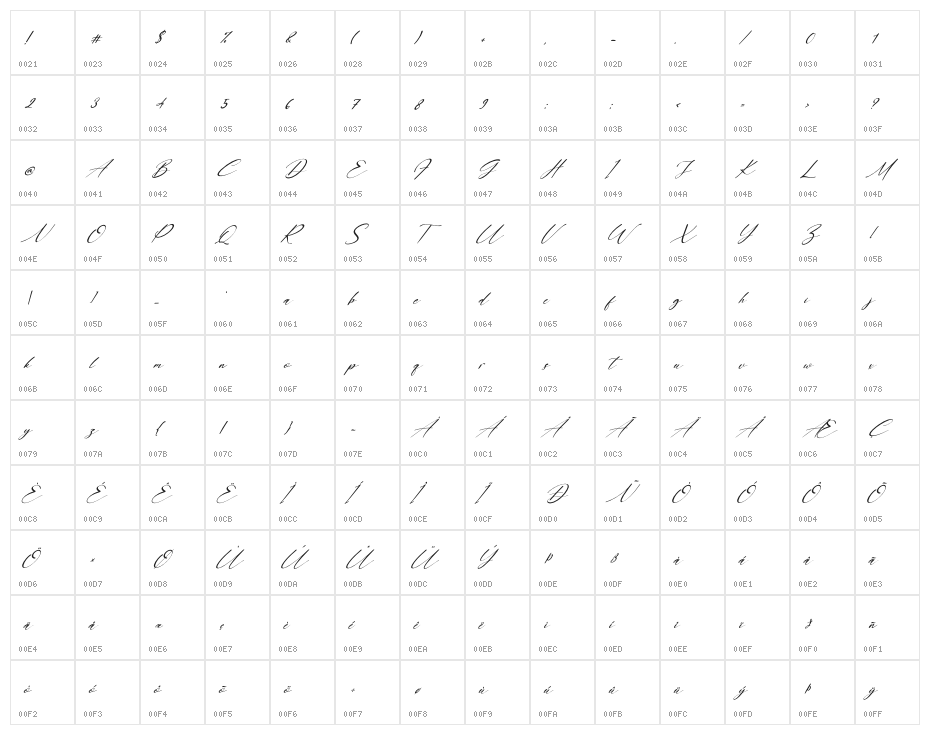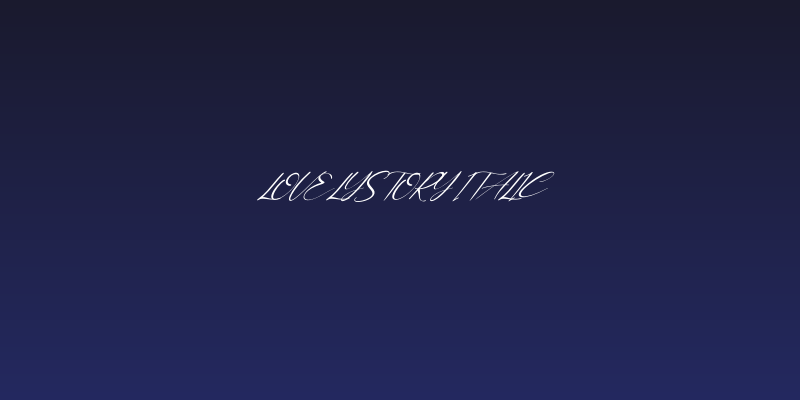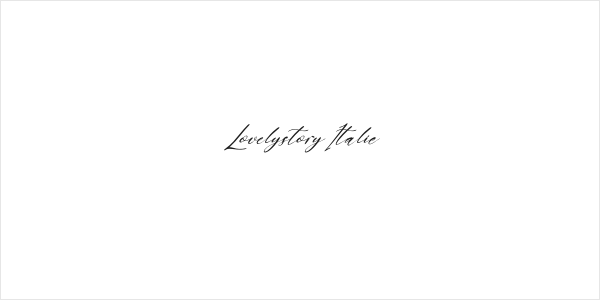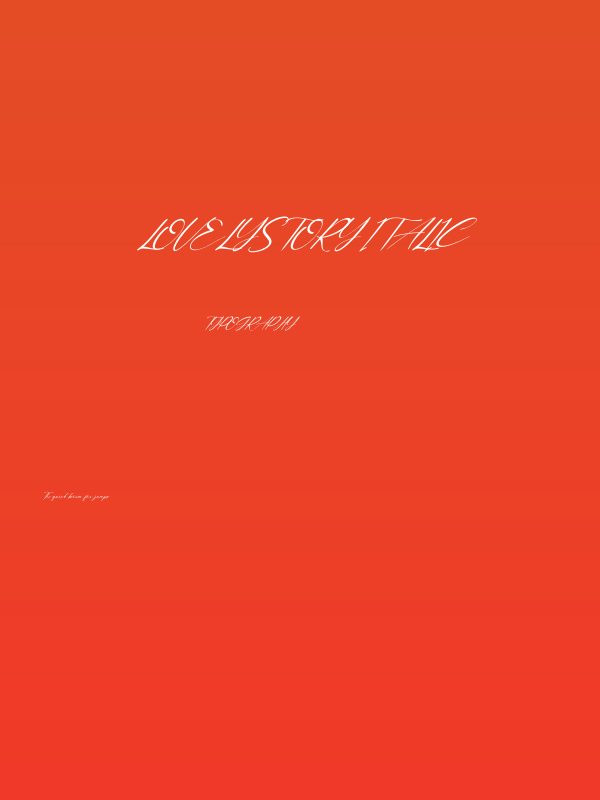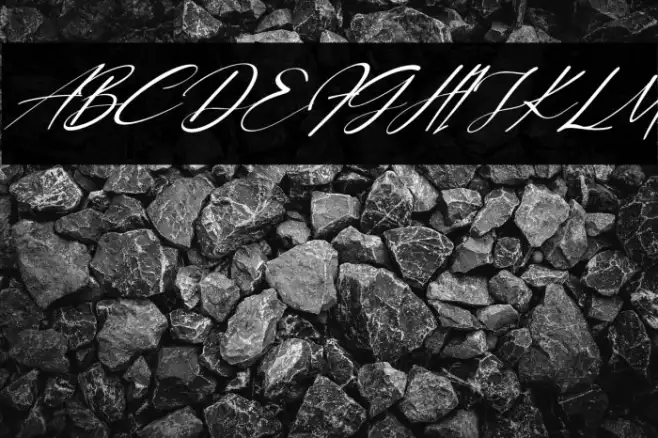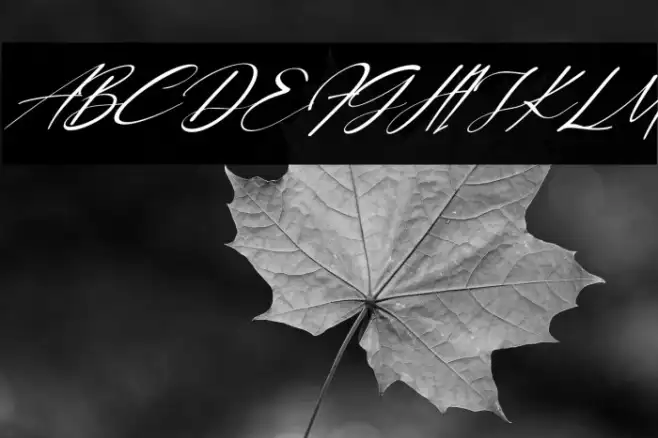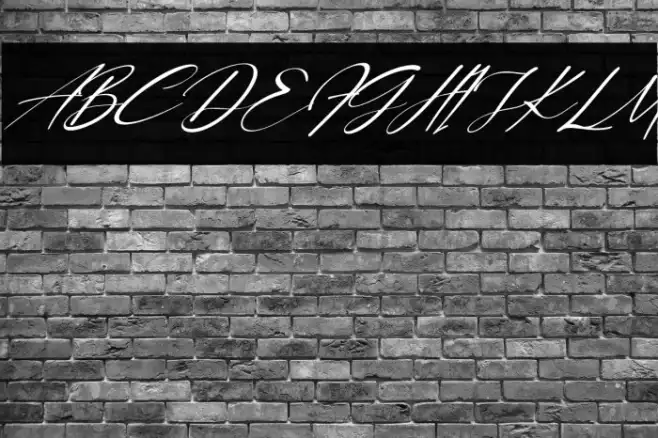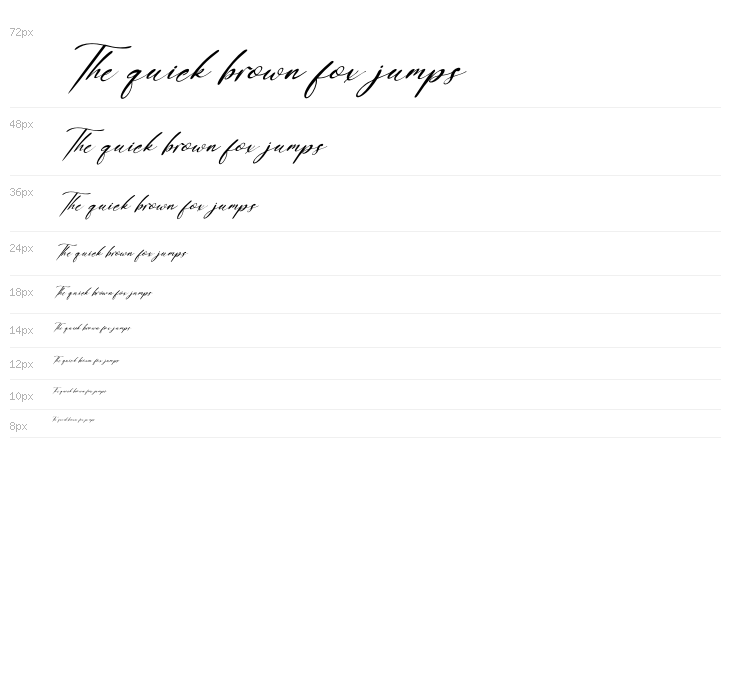
Lovelystory Italic Font
Lovelystory Italic Description
This elegant script font features a flowing, cursive style with a sophisticated and romantic flair. The letters are connected seamlessly, creating a smooth and continuous line that mimics the fluidity of handwriting. The uppercase letters are grand and sweeping, while the lowercase letters maintain a delicate and graceful appearance. The numerals and special characters are designed to complement the overall aesthetic, maintaining the same elegant curves and strokes. This font exudes a sense of luxury and refinement, making it ideal for formal invitations, branding, and any project that requires a touch of elegance.
| Overall Style | Elegant, Romantic |
| Use Case | Invitations, Branding, Stationery |
| Proposed Projects | Ideal for wedding invitations, luxury branding, elegant stationery, and romantic-themed designs. |